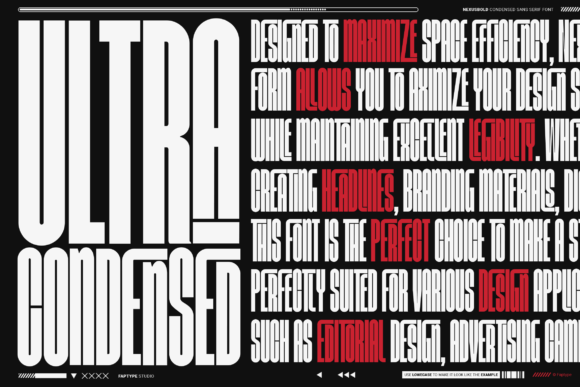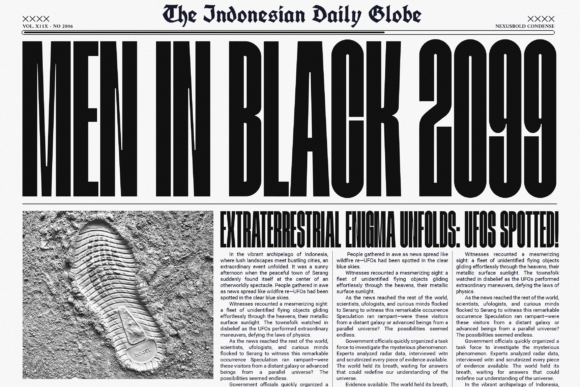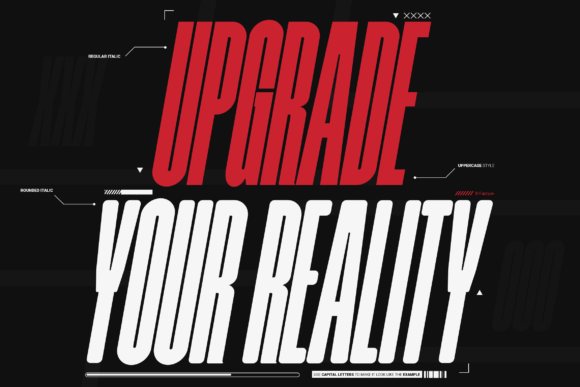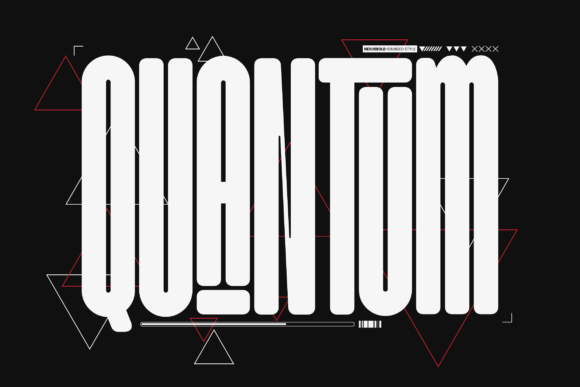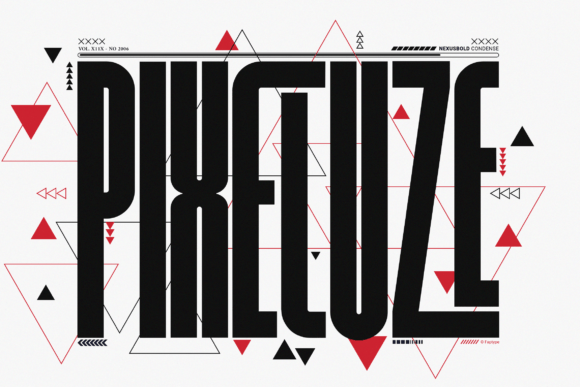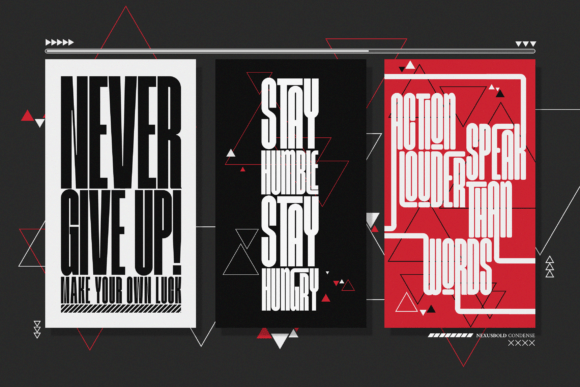
Introduction to Nexusbold Font
Introducing Nexusbold, a modern condensed sans font that redefines typographic excellence.
With its sleek and contemporary design, Nexusbold is the epitome of elegance and functionality, enhanced by an extensive array of meticulously crafted ligatures Nexusbold’s condensed form is carefully crafted to optimize space without compromising legibility.
Key Features of Nexusbold Font